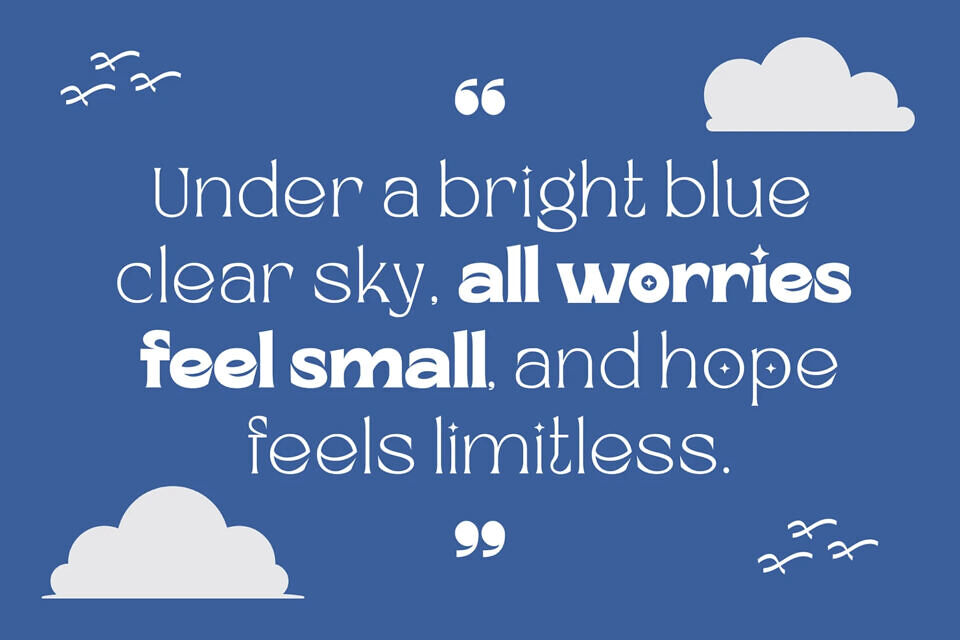
Skylane Horizon Font
Skylane Horizon is an elegant serif typeface blending sophisticated charm with whimsical flair. Available in Regular and Bold weights, this modern font features 384 glyphs, including unique star-shaped decorative alternates and extensive character sets.
Its high-contrast strokes and sharp serifs create a polished look for branding, editorial design, and advertising. Perfect for display use, Skylane Horizon offers multilingual support and creative versatility for posters or signage.